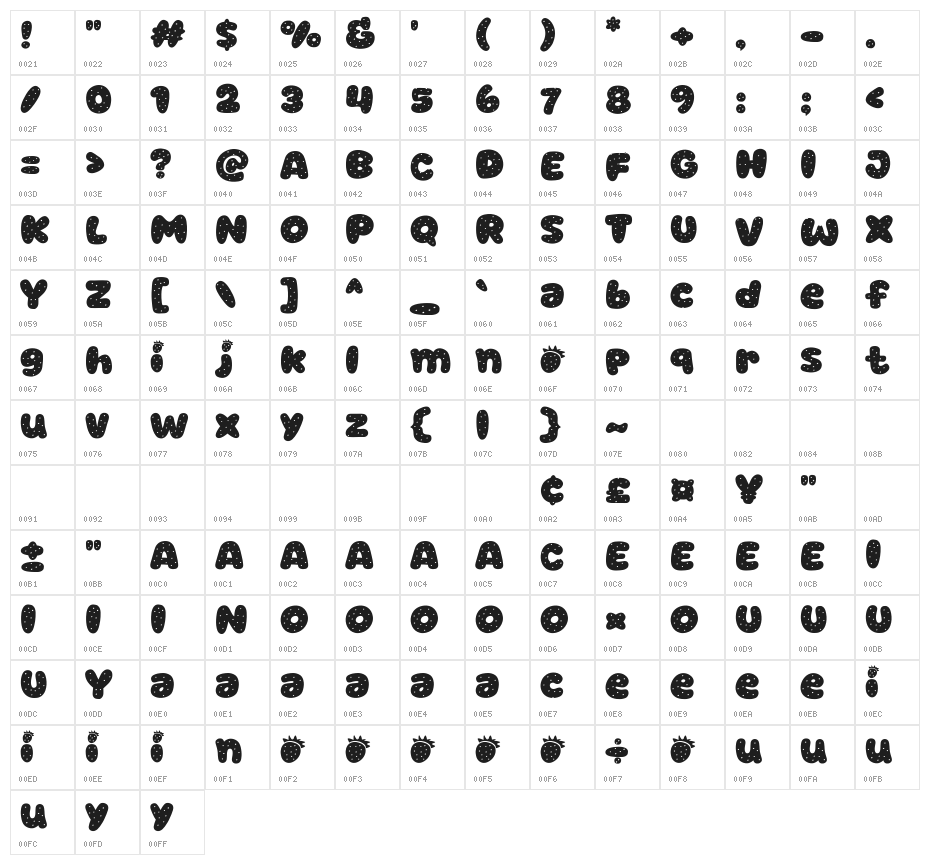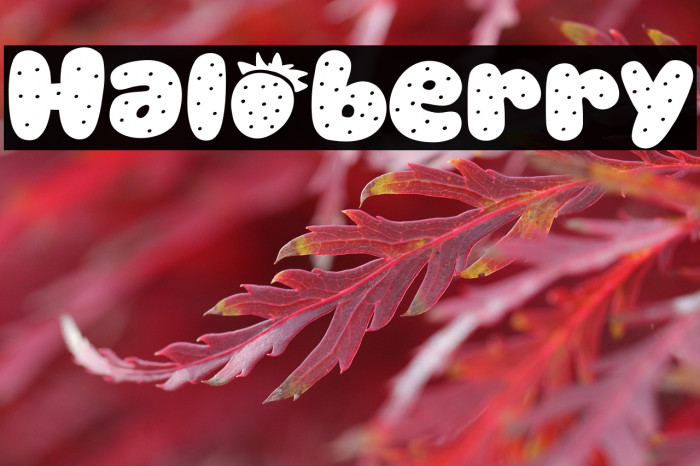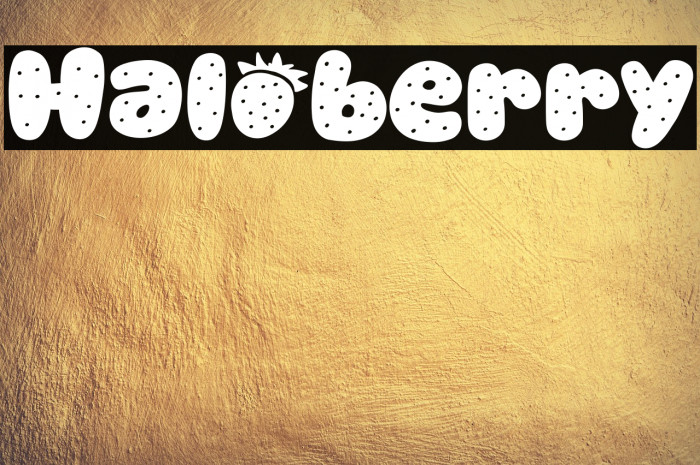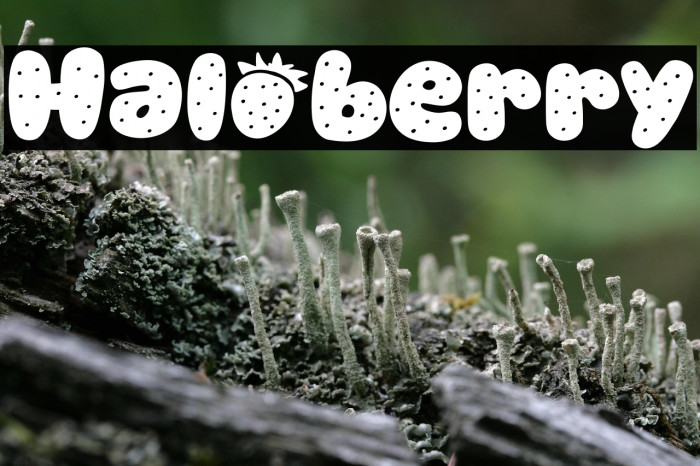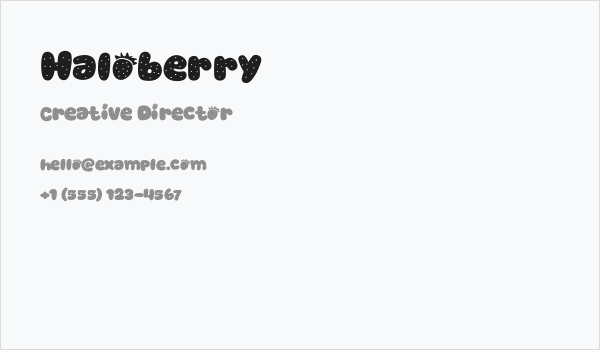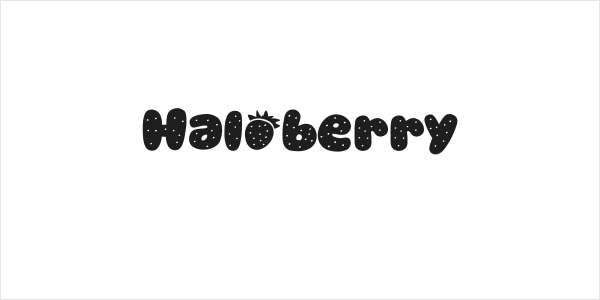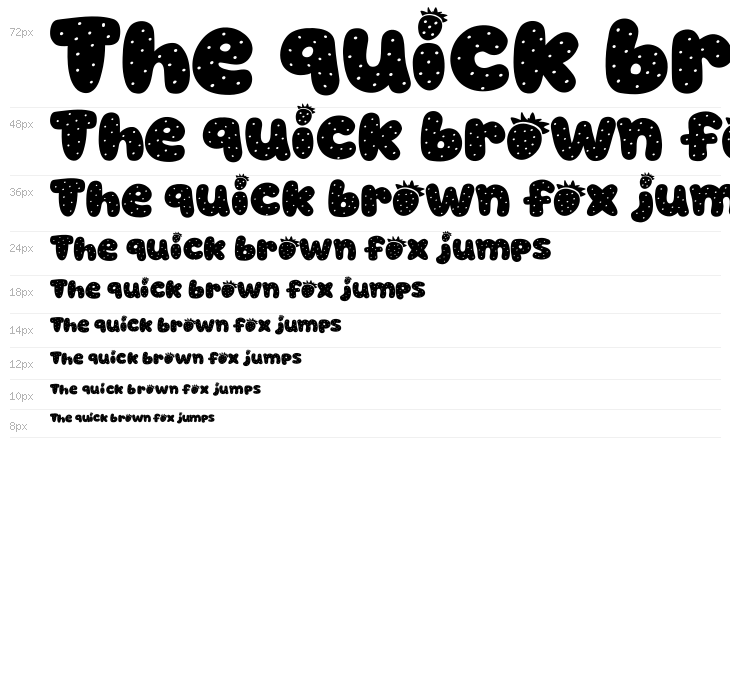
Haloberry Font
Haloberry Description
This playful and whimsical font features bold, rounded characters filled with small, irregular dots, giving it a fun and dynamic appearance. The letters have a uniform thickness, contributing to a cohesive and friendly look. The playful nature is further emphasized by the occasional decorative elements on certain characters, such as small lines or dots that resemble eyes or eyelashes. The numbers and special characters maintain the same bubbly style, ensuring consistency across all glyphs. This font is perfect for projects that require a touch of humor and creativity, making it ideal for children's materials, playful branding, or any design that aims to evoke joy and imagination.
| Overall Style | Playful, Whimsical |
| Use Case | Logos, Posters, Children's materials |
| Proposed Projects | Ideal for children's books, playful branding, party invitations, and creative posters. |